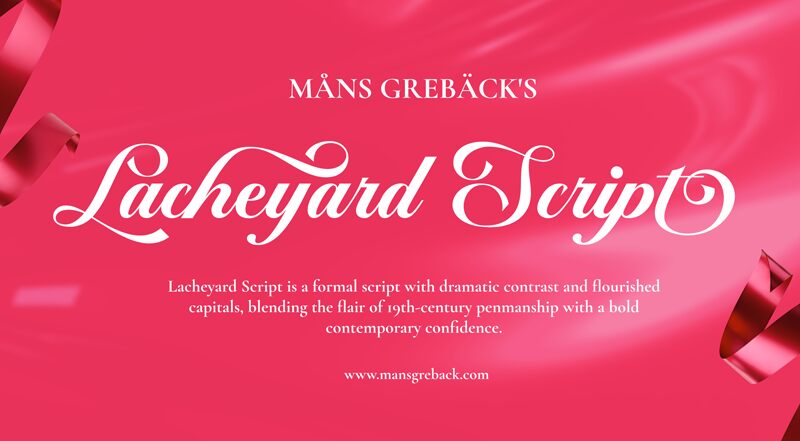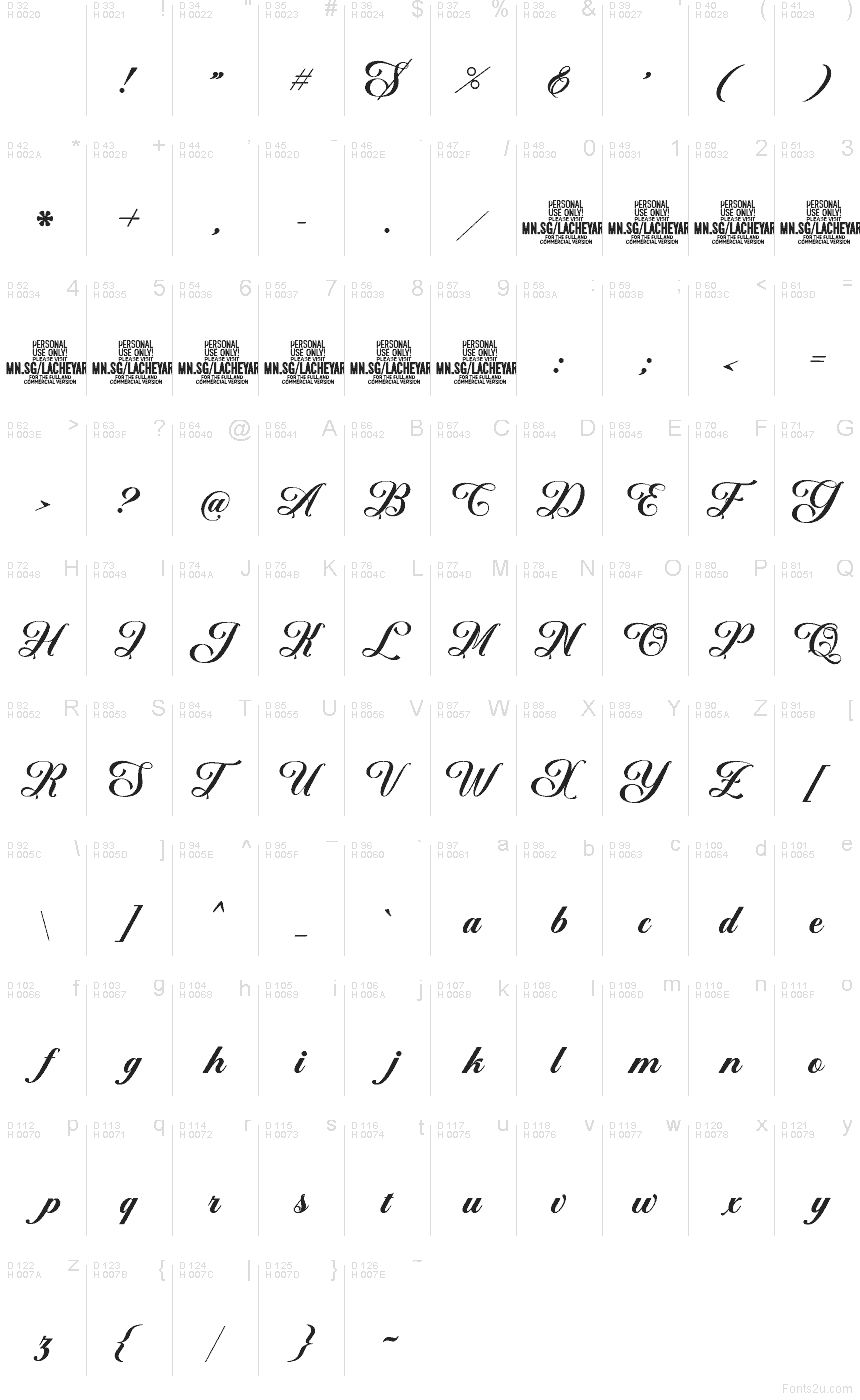
Lacheyard Script font by Mans Greback is a free calligraphy typeface that brings a sense of ceremony to anything it touches. Its swooping, flourished capitals feel like they’ve been drawn with a wet, inky nib, while the flowing lowercase keeps words legible and steady instead of fussy. The contrast between thick strokes and hairline sweeps gives headlines a theatrical, candlelit glow that looks refined rather than overdone.
Using Lacheyard Script, you can give wedding invitations, event programs, perfume or chocolate packaging, boutique branding, certificates, and social media quote graphics a lush, formal voice. This free font shines when it’s set large with generous spacing, then paired with a clean sans serif for supporting text to keep the overall layout crisp and readable.